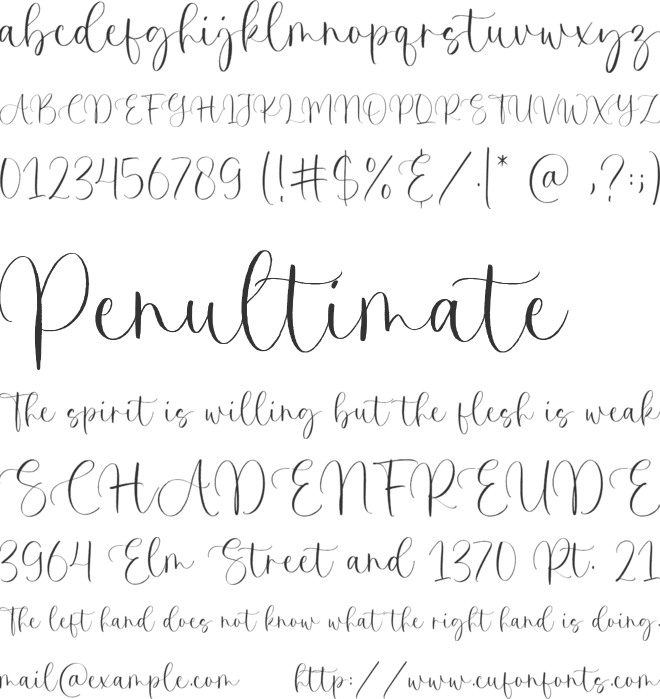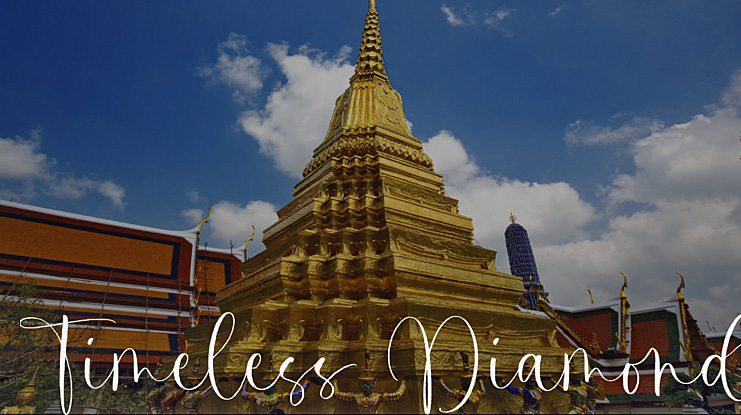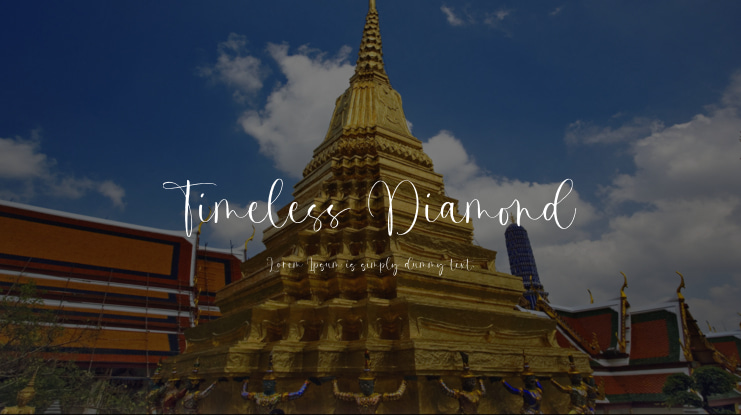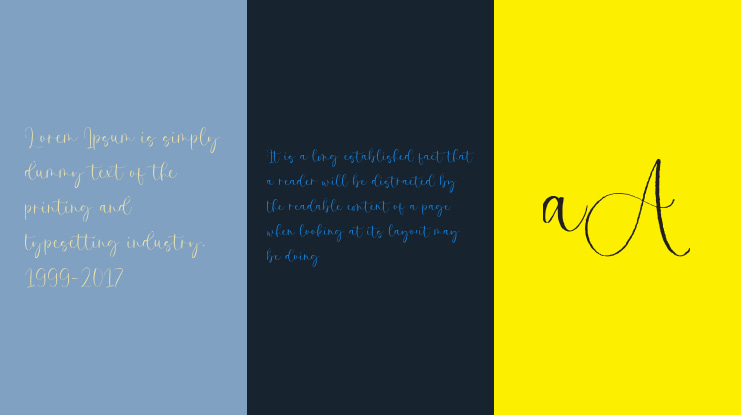
Timeless Diamond Font
Timeless Diamond is a Modern handwritten typeface that's perfect for adding a touch to your design projects! With its natural, organic feel and unique character.
Crafted with care and attention to detail, this font is incredibly versatile and can be used for a range of design projects, including logos, branding, invitations, and more. Its modern, handwritten style gives it a unique character that's sure to make an impact.